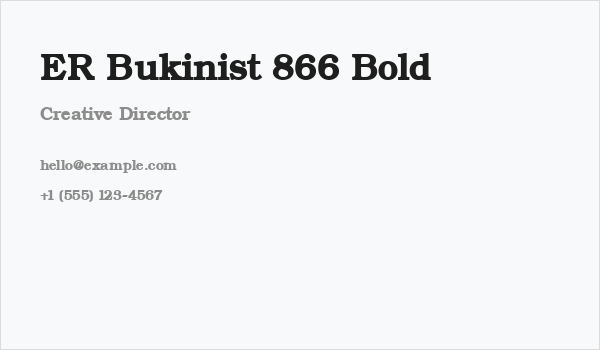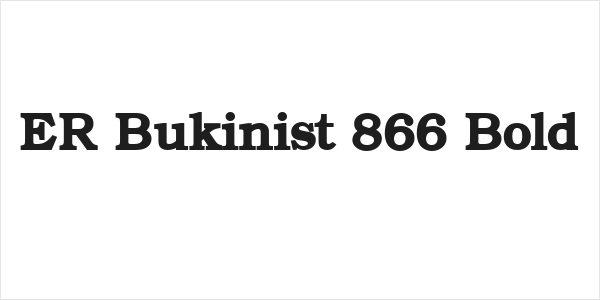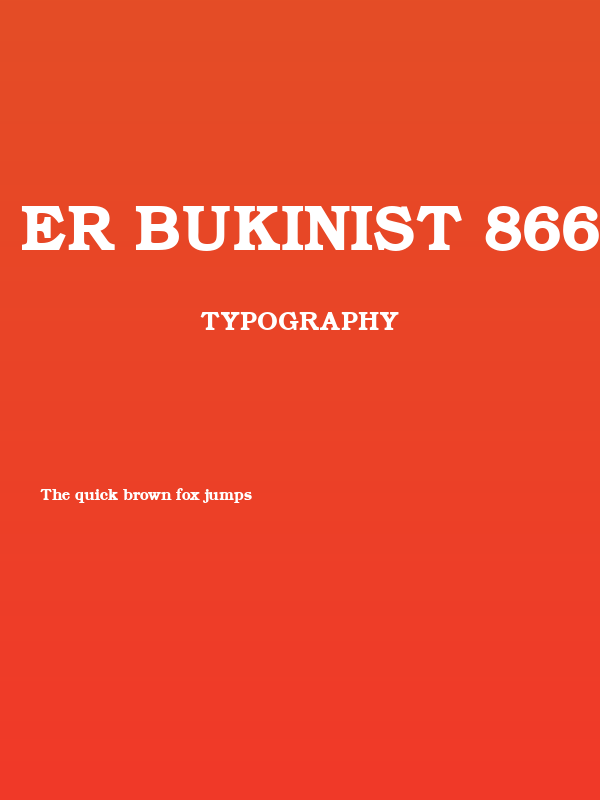
ER Bukinist 866 Bold Font
ER Bukinist 866 Bold Description
This font features a bold and robust design with strong serifs, giving it a classic and authoritative appearance. The characters are well-defined with a consistent stroke width, providing a sense of stability and reliability. The uppercase letters are prominent and commanding, while the lowercase letters maintain a harmonious balance. The numerals are clear and legible, making them suitable for various applications. Special characters are included, adding versatility to the font's use. Overall, this font exudes a timeless elegance, making it ideal for projects that require a touch of sophistication.
Overall StyleClassic
Use CaseHeadlines, Logos, Editorials
Proposed ProjectsIdeal for book covers, editorial headlines, branding, and formal invitations.